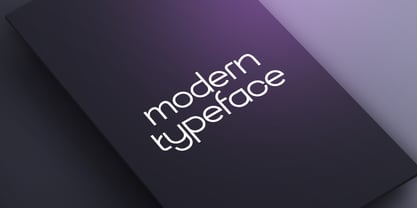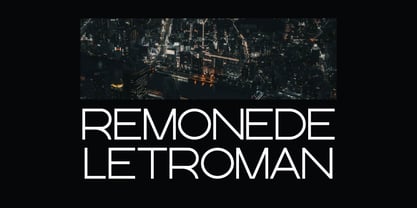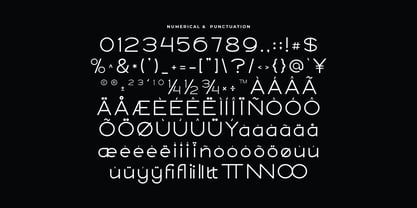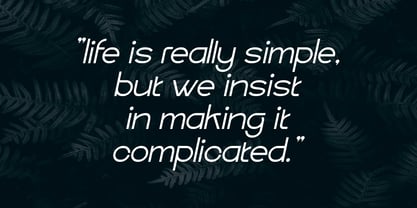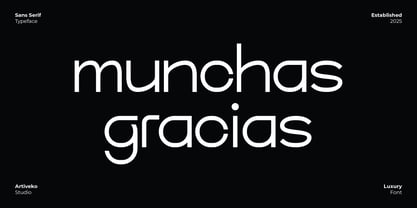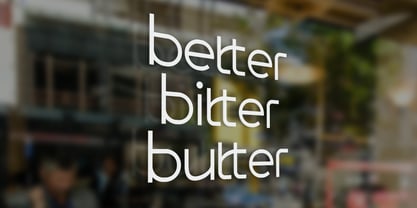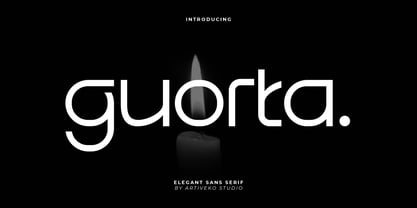
Guorta
by Artiveko
The Guorta Font Family was designed by Iwan Alwan and published by Artiveko. Guorta contains 2 styles and family package options.
Guorta is a clean and refined sans serif font that embodies simplicity, balance, and contemporary elegance. With its smooth curves, precise geometry, and minimalist letterforms, it is ideal for branding, editorial layouts, website headers, product packaging, and social media graphics that demand a modern and timeless aesthetic. Its simple yet distinctive structure ensures excellent readability across both print and digital platforms. Guorta adapts beautifully to various design contexts — from luxury branding and lifestyle visuals to corporate identities and minimalist creative projects. The font includes uppercase and lowercase letters, numerals, punctuation, multilingual support, and stylistic alternates, providing designers with the flexibility to create clean and polished typography. Elevate your design projects with this minimalist sans serif font that seamlessly blends modern clarity with understated sophistication.